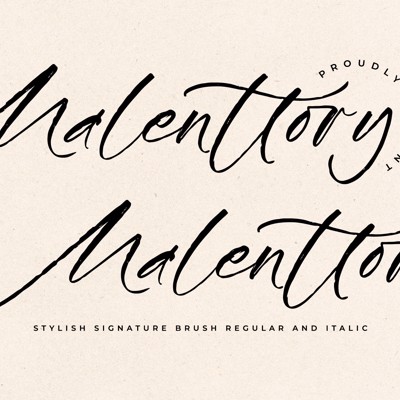
If wanting to 'lovely-up' a sprawl this is interesting leading letter/extension of characters below the line
Lovely sprawl and extension of letters below line